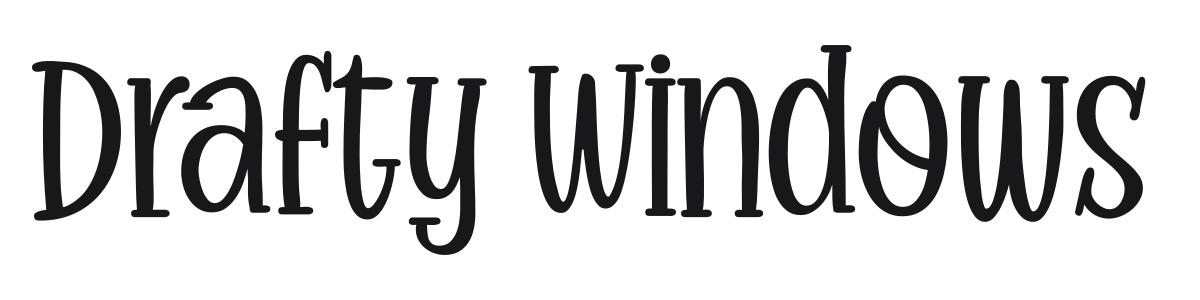
Drafty Windows
Drafty Windows is a condensed display serif with a quirky, handcrafted personality built from an eclectic mix of serif styles and subtly irregular construction. The tall narrow proportions and casual imperfections give it a warm, artisanal quality that reads as approachable rather than polished. It works well at large sizes for headlines, packaging, or identity work where a little character goes a long way.